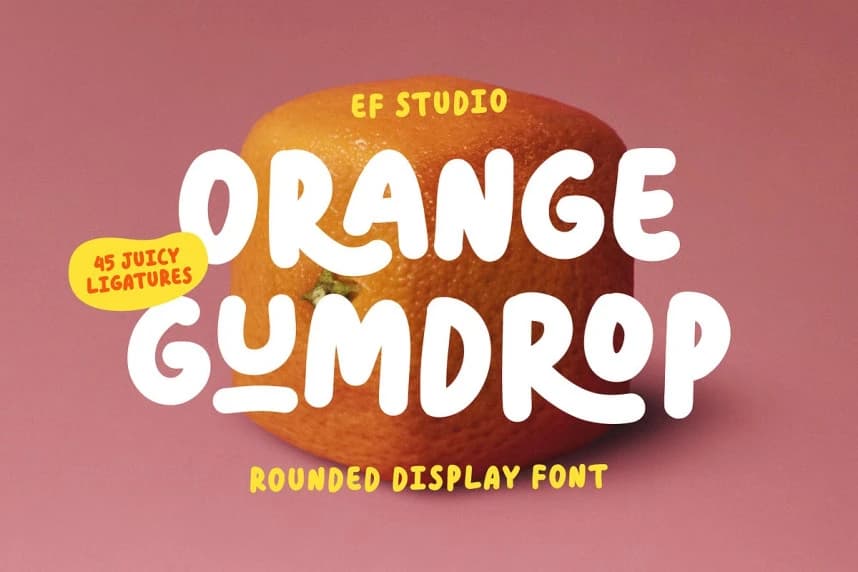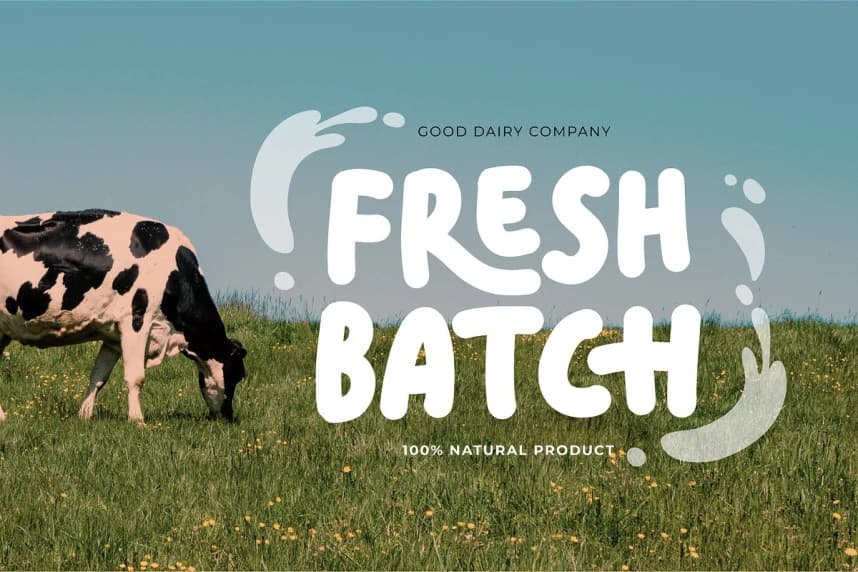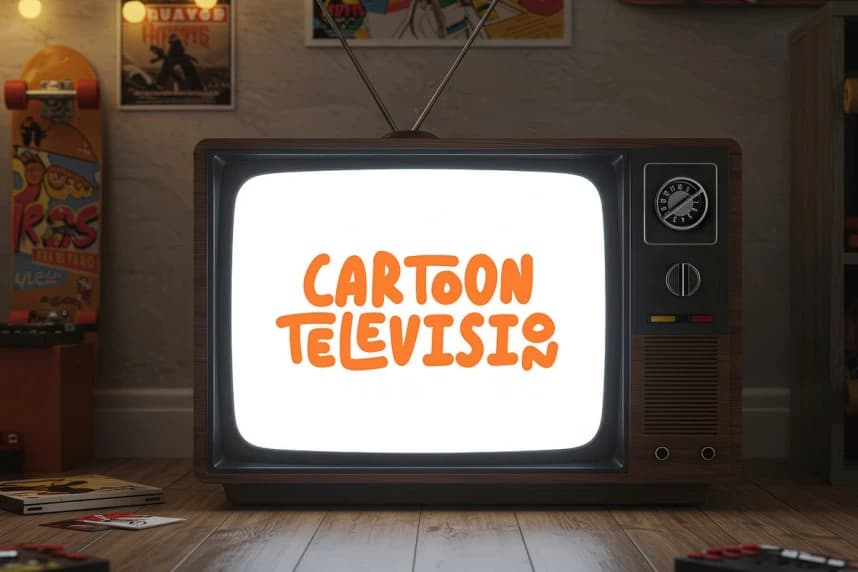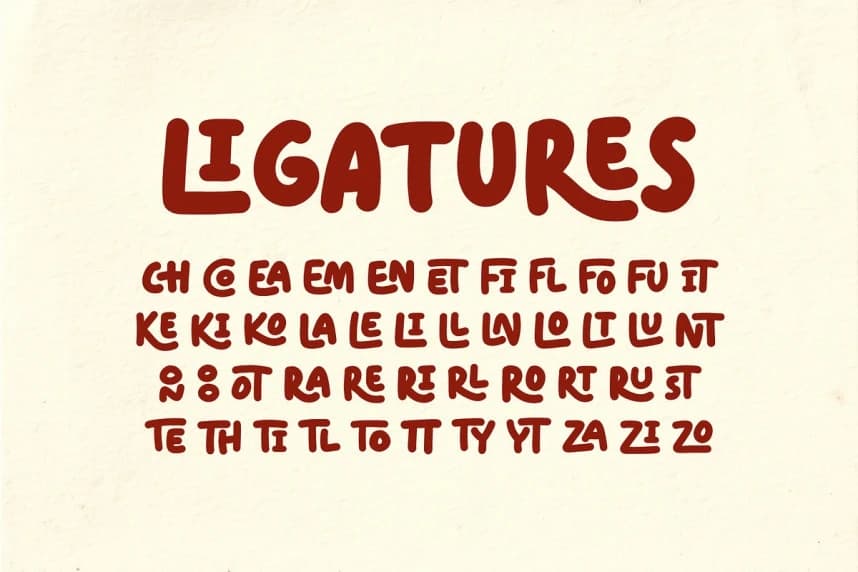
Orange Gumdrop Font
Orange Gumdrop Font is a playful display font defined by soft curves, rounded terminals, and intentionally uneven details. Its shapes feel warm and expressive, with a hand-touched quality that brings a sense of ease and familiarity.